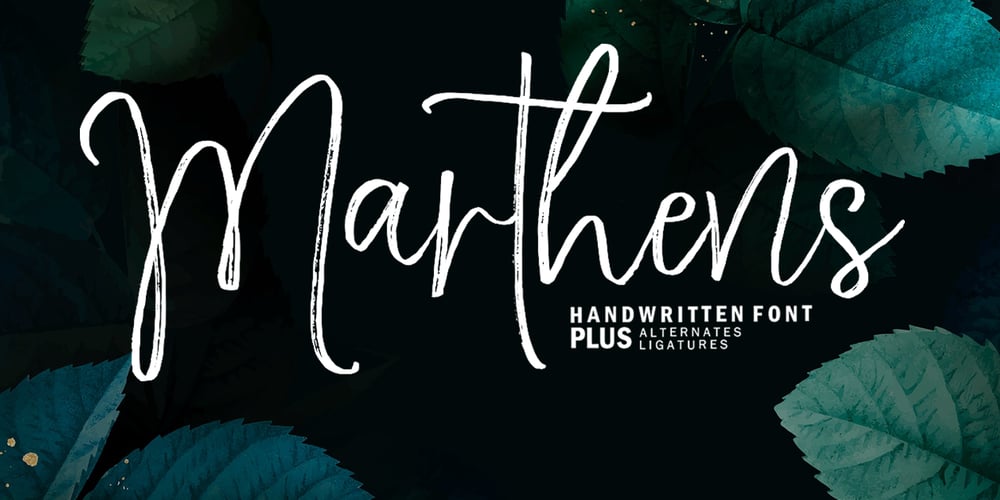
Marthens Font Family was designed by Naufal Paramata and published by Youngtype. Marthens contains 1 styles and family package options. Marthens is made with brushes and ink. This typeface is ideal for use in thick watercolor designs or handwriting styles, such as blog titles, posters, wedding elements, t-shirts, clothing, book covers, business cards, greeting cards, branding, merchandising, and more.Contains a full set of: Uppercase Lowercase Alternates Ligatures Punctuation Numbers Multi-lingual support How to access all alternative characters, using Windows Character Map with Photoshop:https://www.youtube.com/watch?v=Go9vacoYmBwHow to access all alternative characters using Adobe Illustrator:https://www.youtube.com/watch?v=XzwjMkbB-wQThank you!